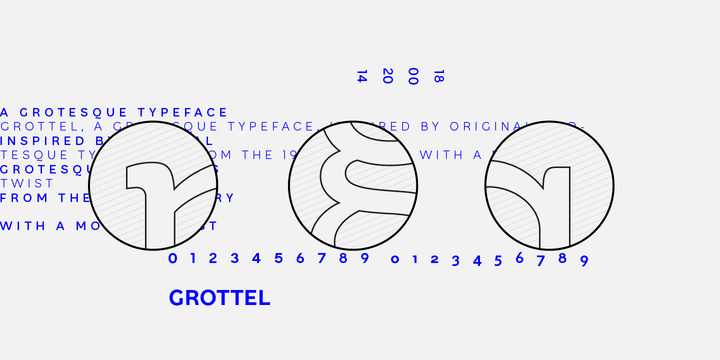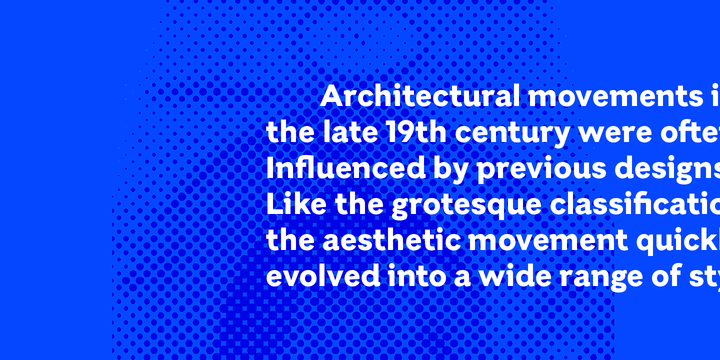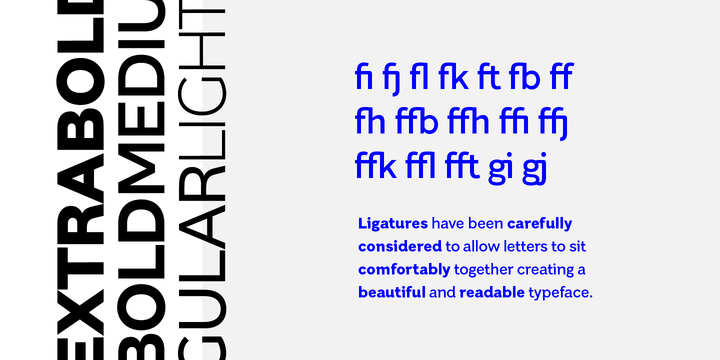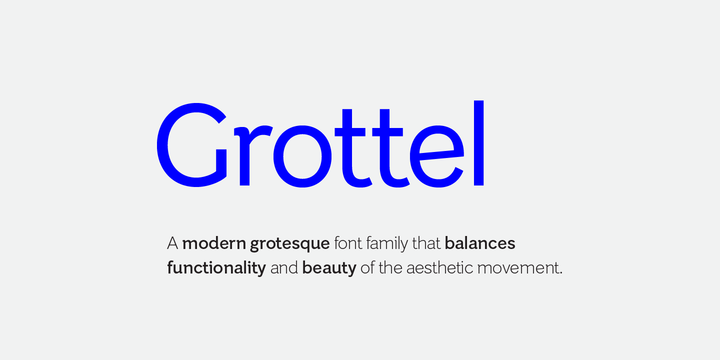
Grottel
Grottel Font Family
Grottel is a modern grotesque sans serif font family that follows the philosophy of original grotesque typefaces with enhanced personality. Fine details and tuning, balance functionality and the beauty representative of the aesthetic movement in the 19th century. Details include 5 weights, a full European character set, manually edited kerning, ligatures and alternatives to allow users to add further personality to the font.